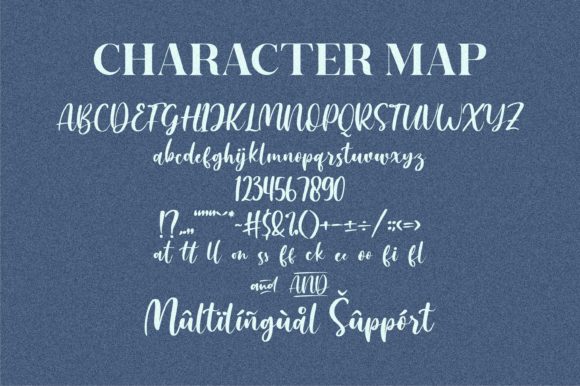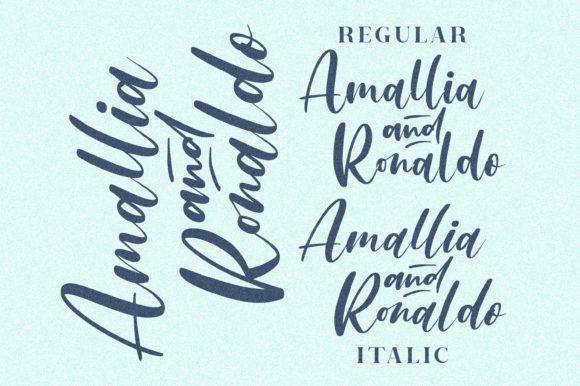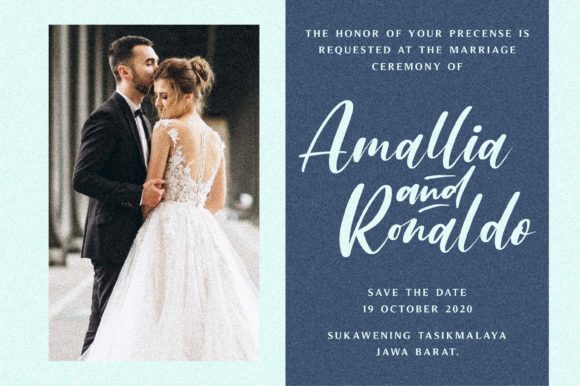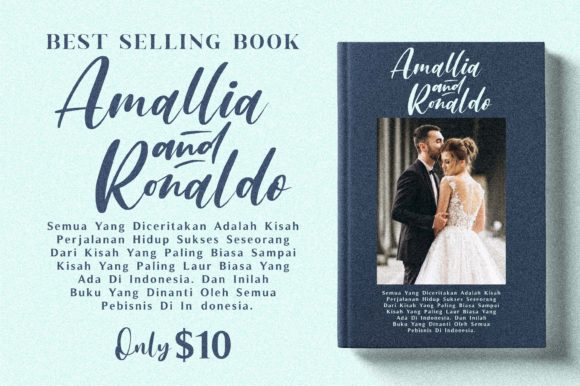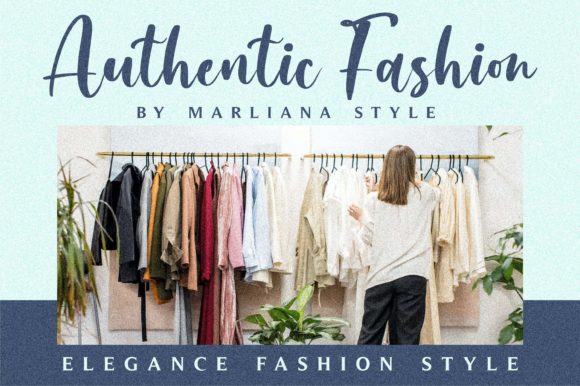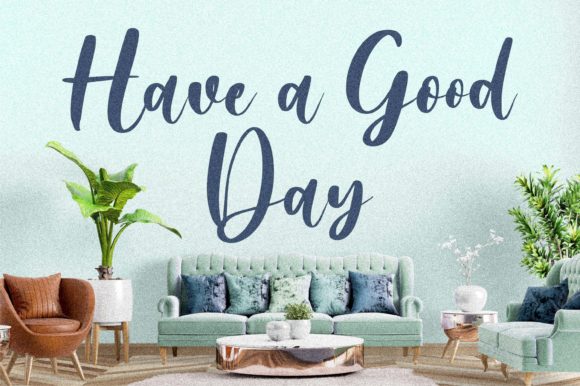
Introduction to Amallia and Ronaldo Font
Amallia and Ronaldo is an elegant and dainty handwritten font that features sweet and delicate swashes.
This original look will appeal to a wide range of crafty ideas, from letterheads and titles, to stationery This font is PUA encoded which means you can access all of the glyphs and swashes with ease.
Key Features of Amallia and Ronaldo Font